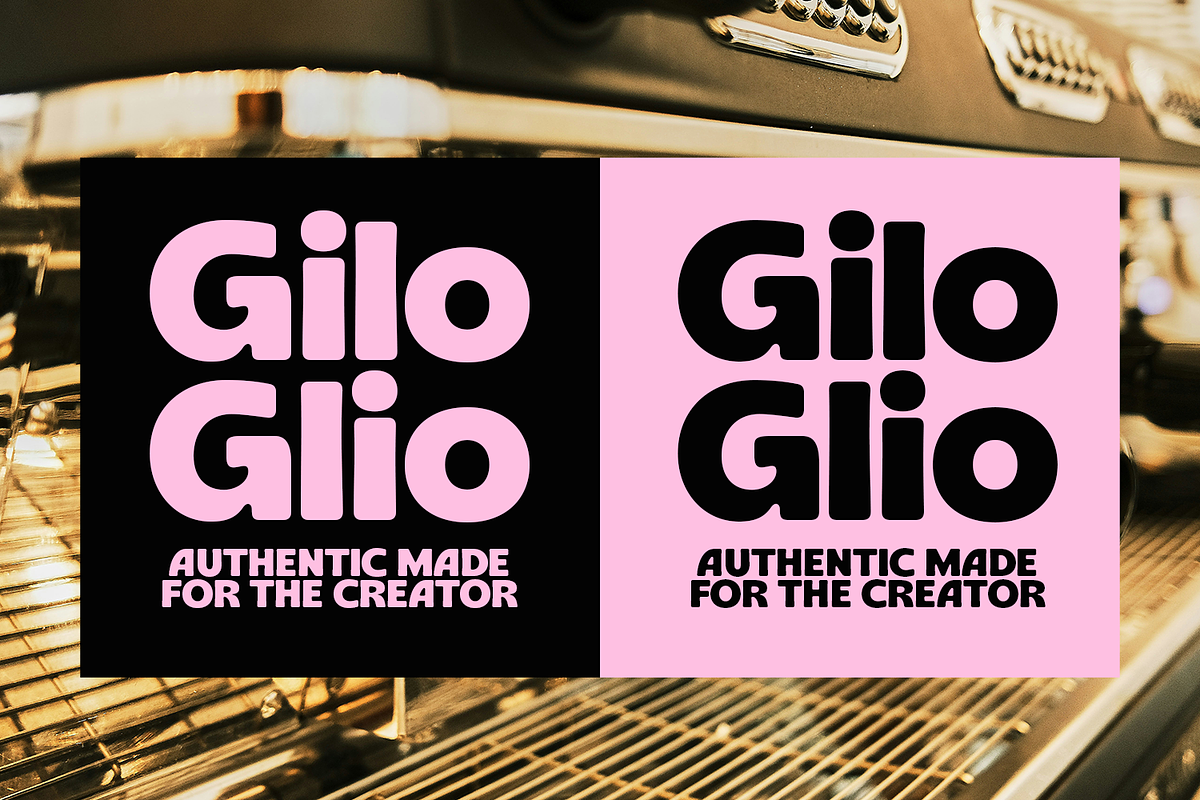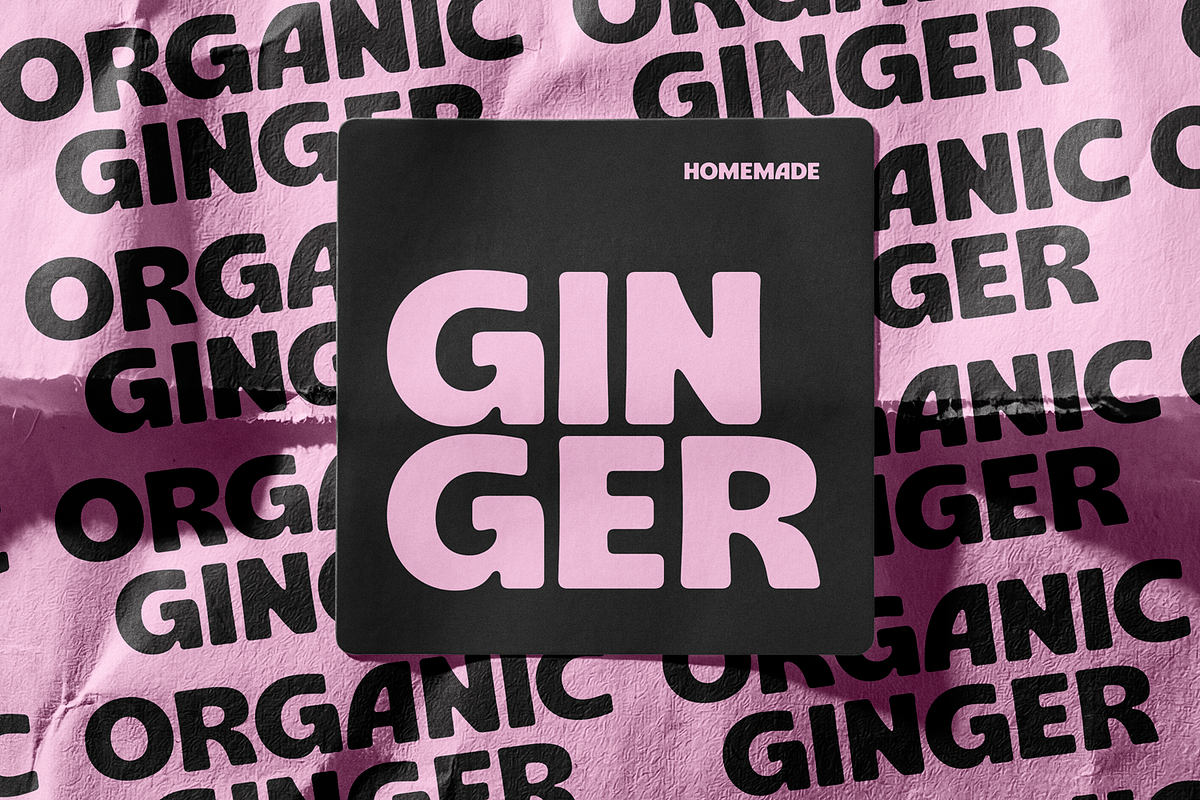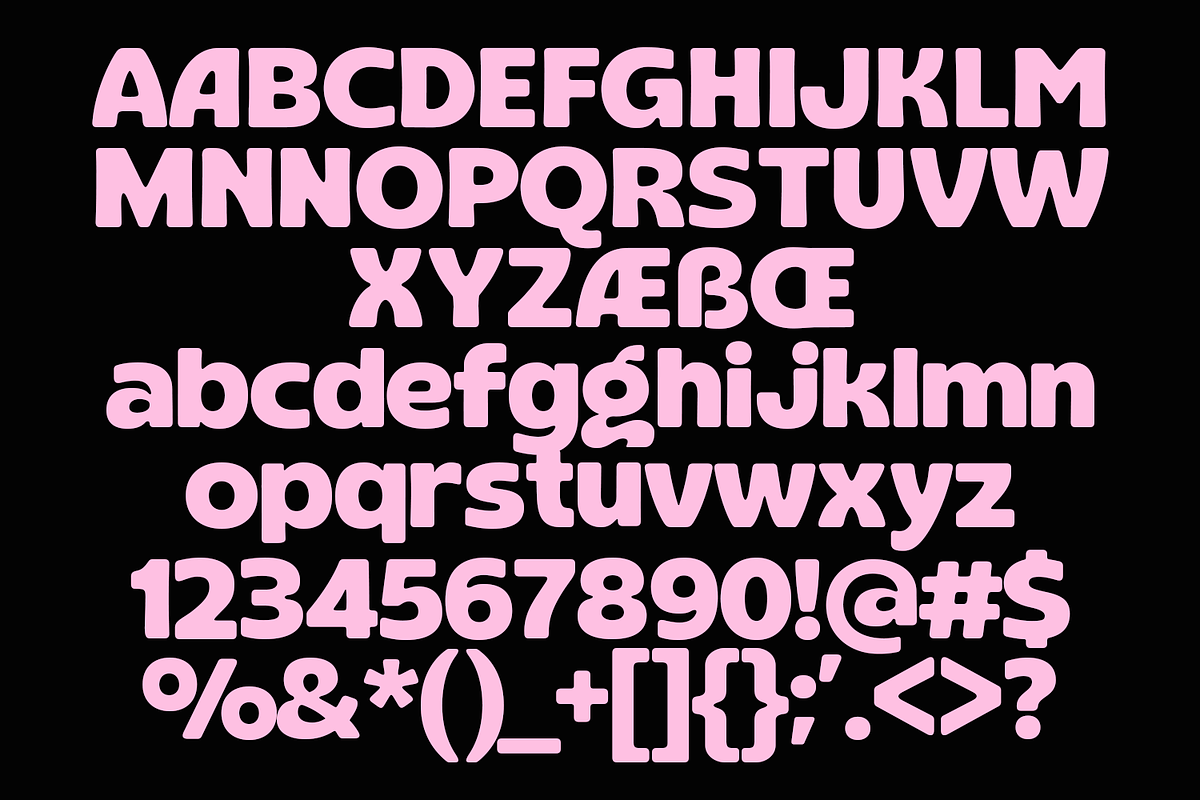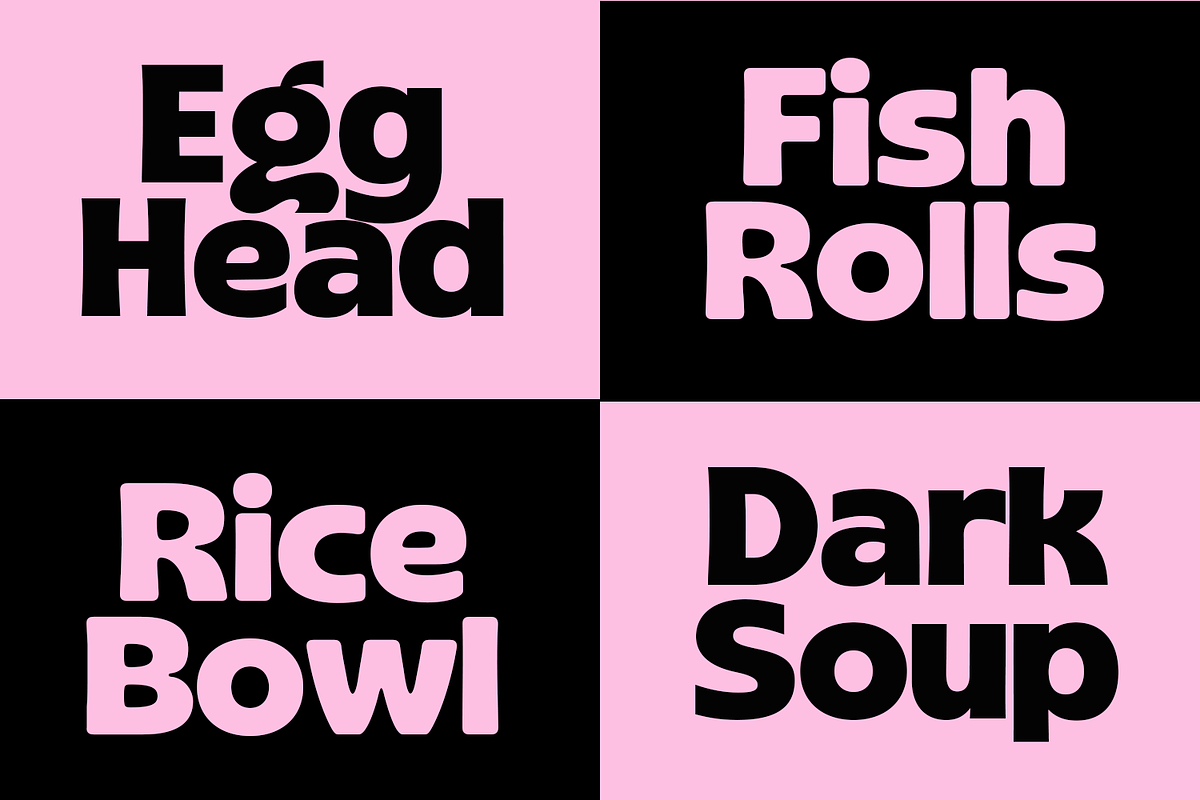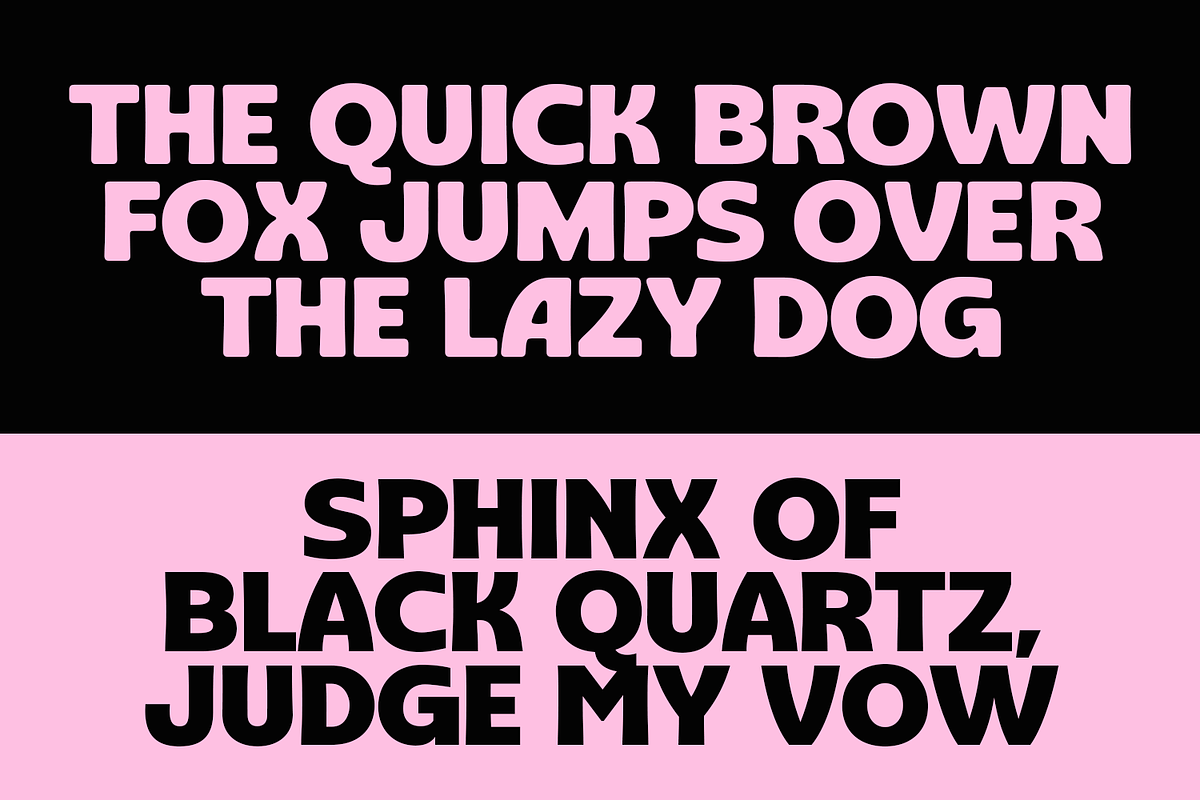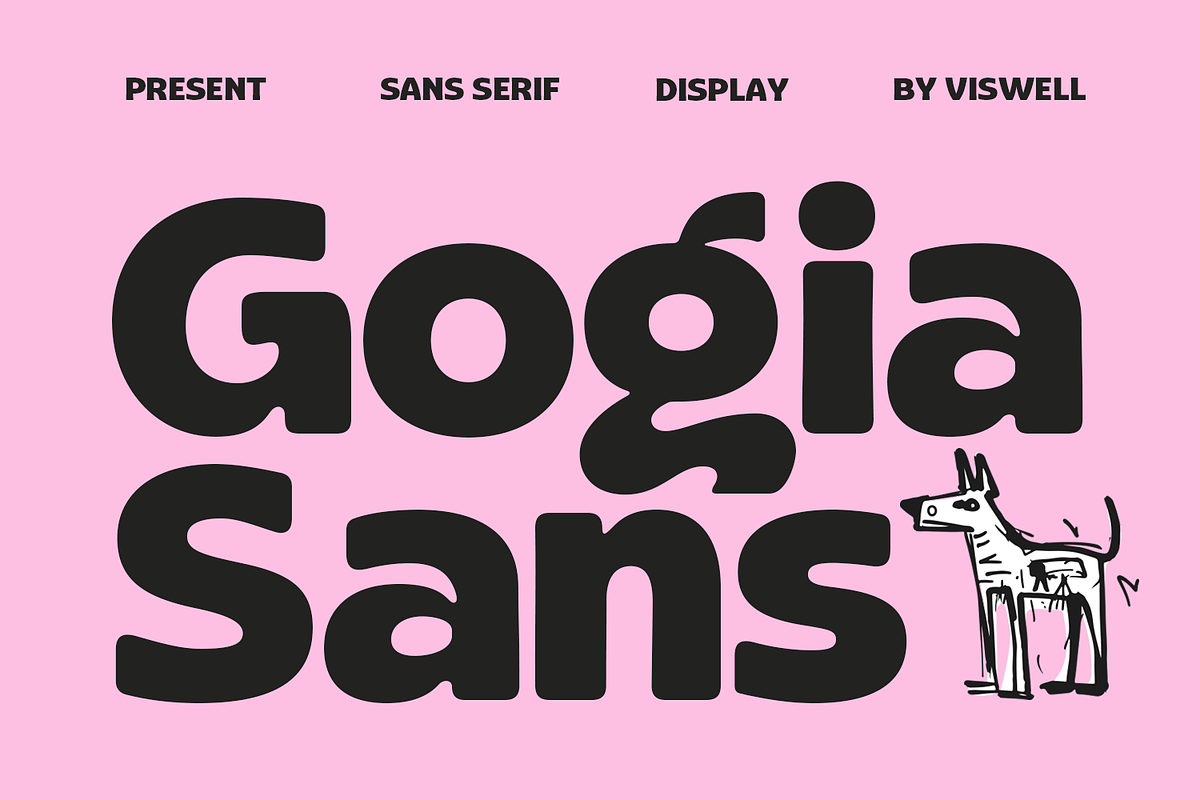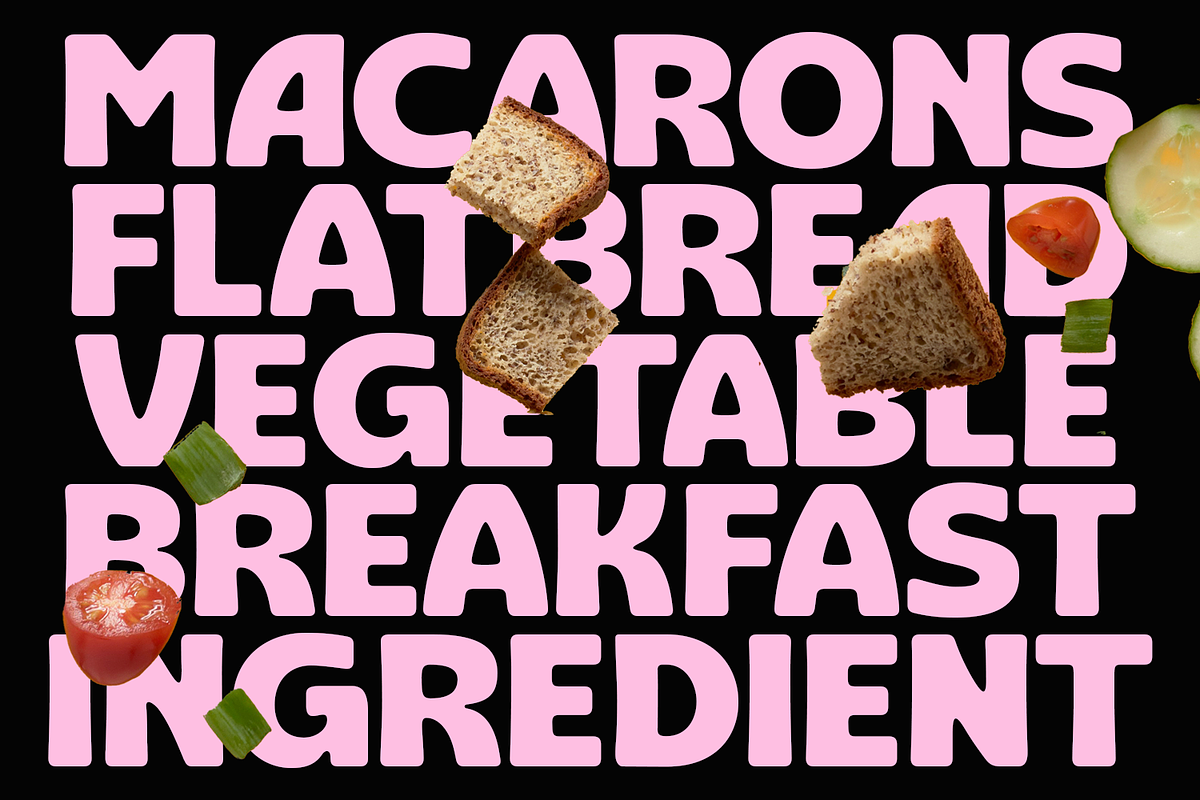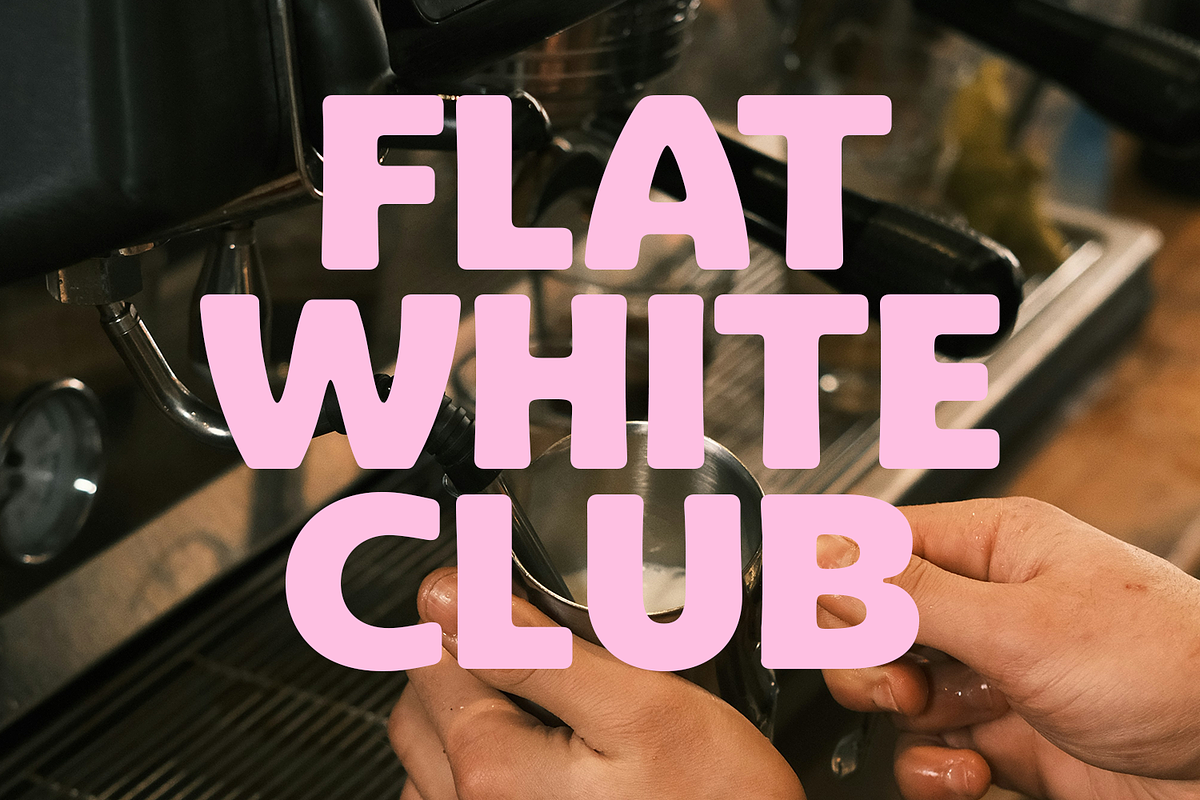
Gogia Sans
Gogia is a chunky sans serif display font with a bold, playful personality and two distinct styles: Regular and Soft. Regular feels strong and punchy, while Soft adds smoother, friendlier curves for a more relaxed look. It’s great for posters, branding, packaging, logos, social media graphics, headlines, and fun editorial designs.